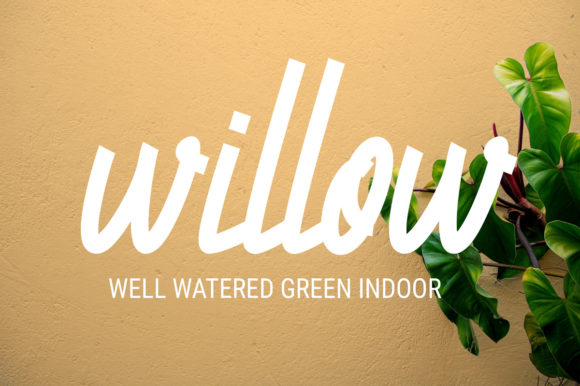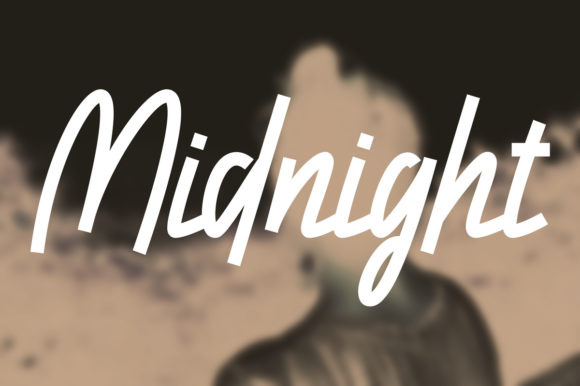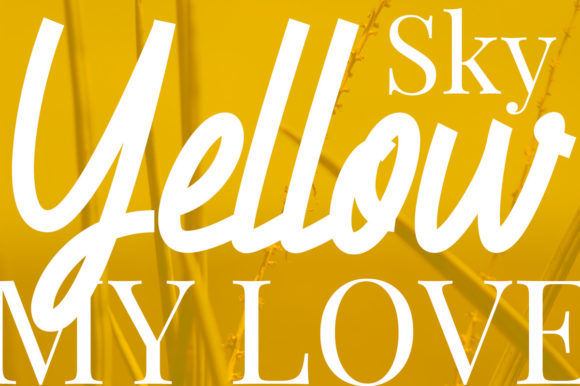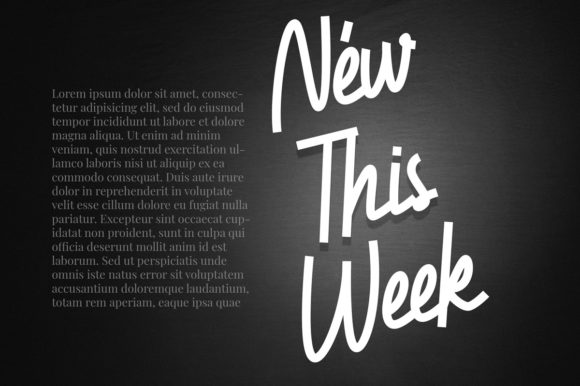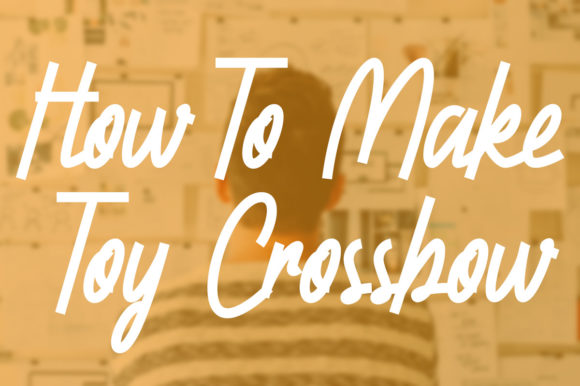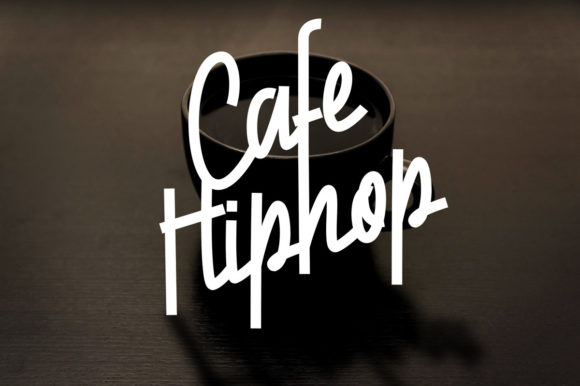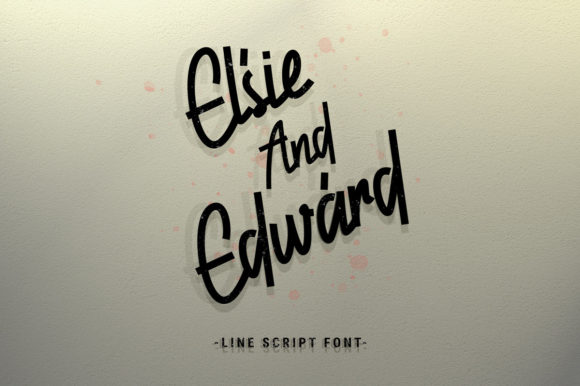
Discover the Elegance of Elsie and Edward Font: Elevate Your Designs to New Heights
Are you on the hunt for a font that exudes sophistication, elegance, and a touch of modern flair? Look no further than the captivating Elsie and Edward font. This exquisite handwritten font is meticulously crafted to capture the hearts of designers and crafters alike, making it a true favorite in the world of typography.
The Perfect Blend of Classy and Contemporary
Elsie and Edward font masterfully blends classy calligraphic influences with a contemporary twist, resulting in a truly unique and refreshing typeface. Its elegant strokes and fluid letterforms evoke a sense of luxury and refinement, making it perfect for projects that demand a high level of sophistication.
Whether you’re working on a branding project, packaging design, or a craft project, Elsie and Edward font is sure to bring a touch of glamour and poise to your work. Its versatility and adaptability make it an excellent choice for a wide range of applications, from wedding stationery to business cards, and from product labels to blog headers.
What Makes Elsie and Edward Font So Special?
So, what sets Elsie and Edward font apart from other fonts in its category? Here are a few key features that make it a standout:
- Handwritten with love: Elsie and Edward font is carefully crafted by hand, giving it a personal and intimate feel that’s hard to replicate with machine-generated fonts.
- Calligraphic influences: The font’s calligraphic roots are evident in its elegant strokes, flourishes, and letterforms, which add a touch of sophistication and refinement to any project.
- Contemporary and fresh: Despite its classic influences, Elsie and Edward font feels modern and fresh, making it perfect for designers and crafters who want to create something new and exciting.
- Highly legible: The font’s clear and concise letterforms ensure that it’s easy to read, even at smaller sizes, making it perfect for body text and captions.
How to Use Elsie and Edward Font in Your Projects
Ready to fall in love with Elsie and Edward font and bring your projects to the next level? Here are a few ideas to get you started:
- Wedding stationery: Use Elsie and Edward font to create beautiful wedding invitations, save-the-dates, and thank-you cards that exude elegance and sophistication.
- Branding and packaging: Add a touch of luxury to your brand’s packaging and marketing materials with Elsie and Edward font, perfect for high-end products and services.
- Craft projects: Use Elsie and Edward font to add a personal touch to your craft projects, such as handmade cards, gift tags, and scrapbooking pages.
- Digital designs: Incorporate Elsie and Edward font into your digital designs, such as blog headers, social media graphics, and email newsletters, to add a touch of elegance and sophistication.
| Font Name | Elsie and Edward Font |
| Author | FontCastle |
In conclusion, Elsie and Edward font is a true gem in the world of typography, offering a unique blend of classy calligraphic influences and modern freshness. Its versatility, adaptability, and elegance make it a perfect choice for designers and crafters looking to elevate their projects to new heights. So why wait? Fall in love with Elsie and Edward font and discover a world of creative possibilities!
Whether you’re a seasoned designer or a crafty DIY enthusiast, Elsie and Edward font is sure to become a favorite in your toolkit. So go ahead, give it a try, and experience the magic of this exquisite handwritten font for yourself!